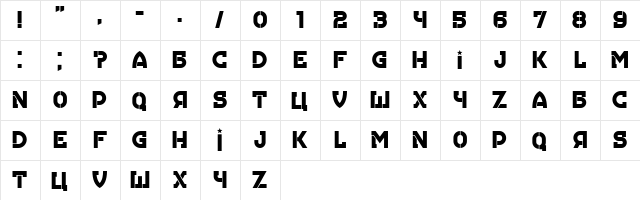
Hungaria Regular
Design Context for Hungaria Typeface
Hungaria is a composed and adaptable typeface that performs quietly and consistently across a wide range of design contexts.